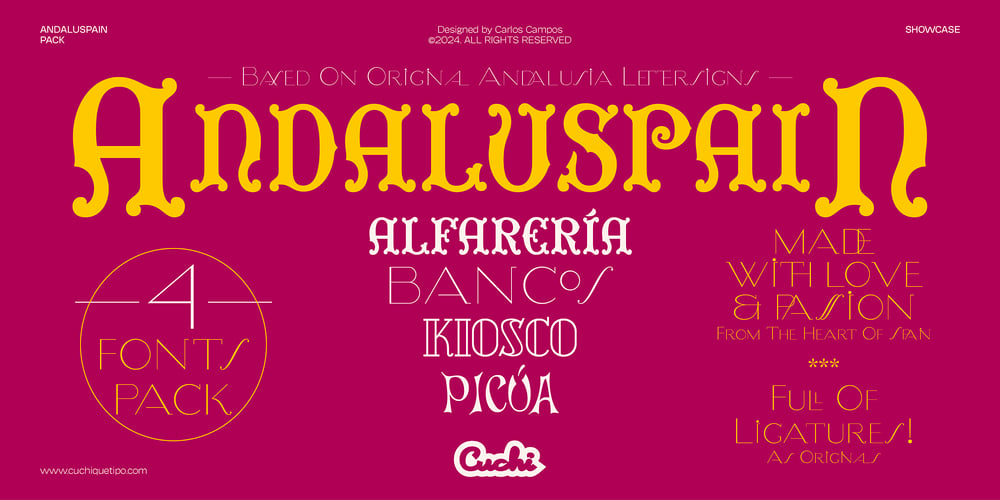
Andaluspain Pack 2
Andaluspain Pack 2 font
Andaluspain Pack 2 Font Family was designed by Carlos Campos and published by Cuchi, qué tipo. Andaluspain Pack 2 contains 6 styles and family package options. “ANDALUSPAIN PACK 2” TYPEFACE SPECIMENIn this font pack you can find the digital interpretation in typefaces of the most emblematic signs of Andalusia: ornate painted letters from Triana, carved bas-relief marble stone from Jaén, or tiles with the artistic mood from Seville, among others. The fact of converting these traditional lettersigns to typographic software recovers them forever, and allows you to give them new uses such as artistic, identity or touristic. Finally, these five typographic references have been chosen based on their historical and artisanal value, and all of them are highly recognized by the public or the clients:BANCOS, BASED ON MARBLE STONE BAS-RELIEF FACADEJaén Central Bank – Paseo de la Estación, 57ALFARERÍA, BASED ON OLD FACTORY CERAMIC TILETriana, Seville – Calle Alfarería, 43KIOSCO, BASED ON NEWSPAPER KIOSK GLASS LETTERINGJaén Bus Station – Plaza Coca de la Piñera, 6PICÚA, BASED ON CERAMIC TILES FROM SEVILLENeighborhood ‘San Julián’, Seville – Several locationsDesigned by Carlos Campos in 2024.(ALL THE PHOTOS BY THE AUTHOR)cuchi@cuchiquetipo.com